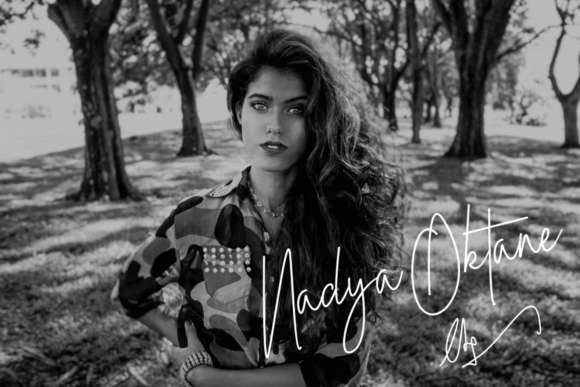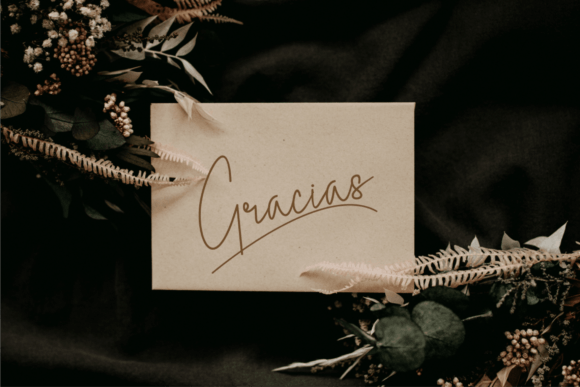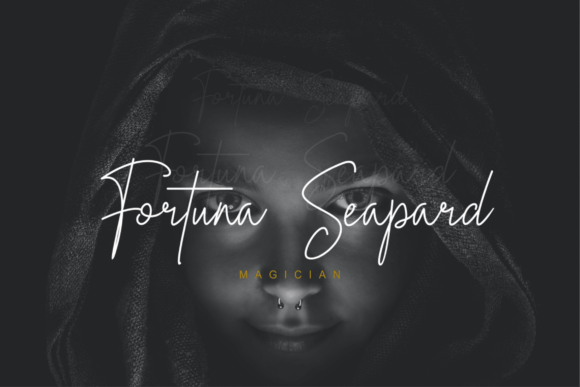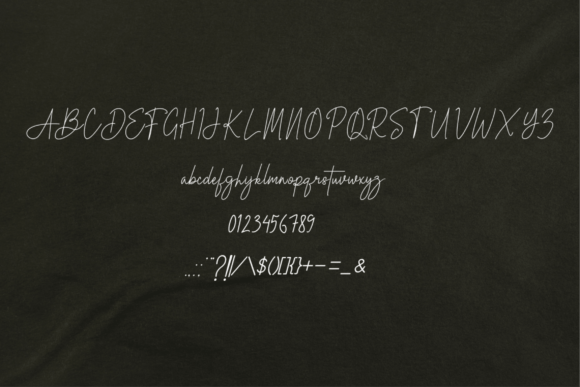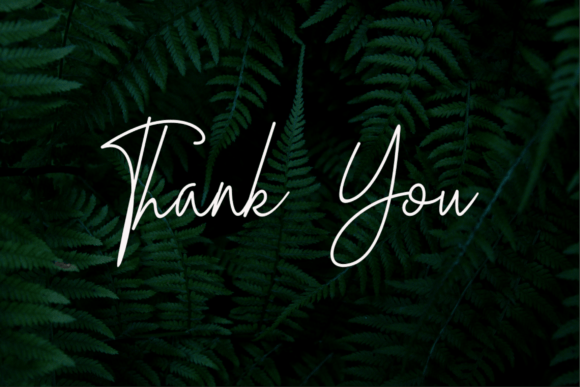
Demonica Font: The Perfect Script Font for Your Branding Projects
In the world of typography, a font can make or break a design. For designers and crafters, finding the right font for a project can be a daunting task. However, if you’re looking for a dainty and authentic script font that can elevate your branding projects, look no further than Demonica Font. In this article, we’ll explore the features and benefits of Demonica Font, and why it’s the perfect choice for your next project.
What is Demonica Font?
Demonica Font is a beautiful script font that exudes elegance and sophistication. With its delicate and intricate strokes, it’s perfect for creating stunning branding materials, such as logos, t-shirts, and more. The font is designed to be versatile and can be used in a wide range of contexts, from digital designs to print materials.
Key Features of Demonica Font
- Dainty and Authentic: Demonica Font has a unique, hand-crafted feel that gives it a genuine and authentic look. The font’s delicate strokes and curves make it perfect for creating elegant and sophisticated designs.
- Versatile: Demonica Font is suitable for a wide range of branding projects, including logos, t-shirts, business cards, and more. Its versatility makes it a great addition to any designer’s font library.
- Easily Readable: Despite its delicate nature, Demonica Font is surprisingly easy to read, making it perfect for body text and headings.
- High-Quality: Demonica Font is a high-quality font that is designed to deliver exceptional results. Its crisp and clean lines ensure that your designs look professional and polished.
Benefits of Using Demonica Font
So, why should you choose Demonica Font for your next project? Here are just a few benefits of using this amazing script font:
- Adds Elegance and Sophistication: Demonica Font can instantly elevate your designs and add a touch of elegance and sophistication.
- Unique and Memorable: The font’s unique and authentic look ensures that your designs will stand out from the crowd and be remembered.
- Time-Saving: With Demonica Font, you can create stunning designs in no time. Its ease of use and versatility make it a great time-saving tool for designers.
Use Cases for Demonica Font
Demonica Font is suitable for a wide range of design projects, including:
- Logo Design: Create stunning logos that make a lasting impression with Demonica Font.
- T-Shirt Printing: Design eye-catching t-shirts that stand out from the crowd with this amazing script font.
- Branding and Packaging: Elevate your branding and packaging designs with Demonica Font’s elegant and sophisticated look.
- Digital Designs: Use Demonica Font to create stunning digital designs, such as social media graphics, blog posts, and more.
In conclusion, Demonica Font is a dainty and authentic script font that is perfect for any branding project. Its versatility, elegance, and sophistication make it a great addition to any designer’s font library. With its ease of use, high-quality design, and affordability, Demonica Font is the perfect choice for designers and crafters looking to create stunning designs that make a lasting impression.